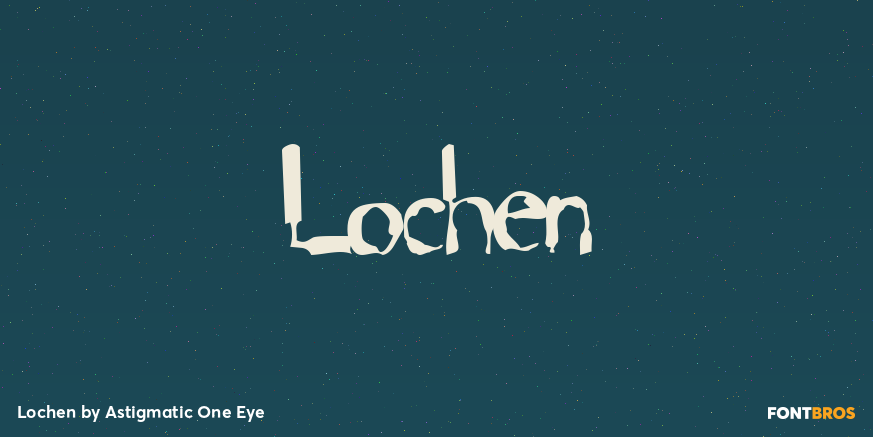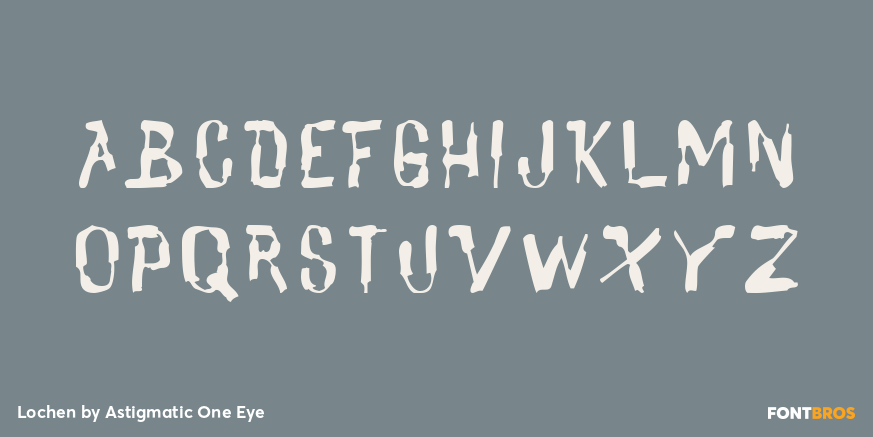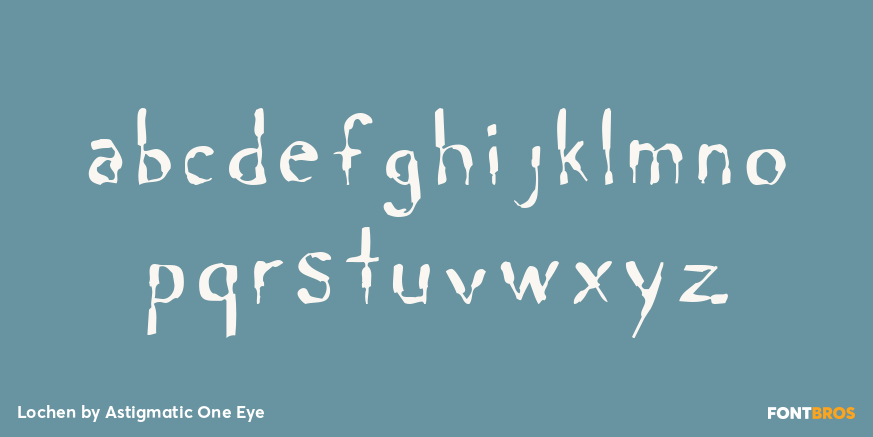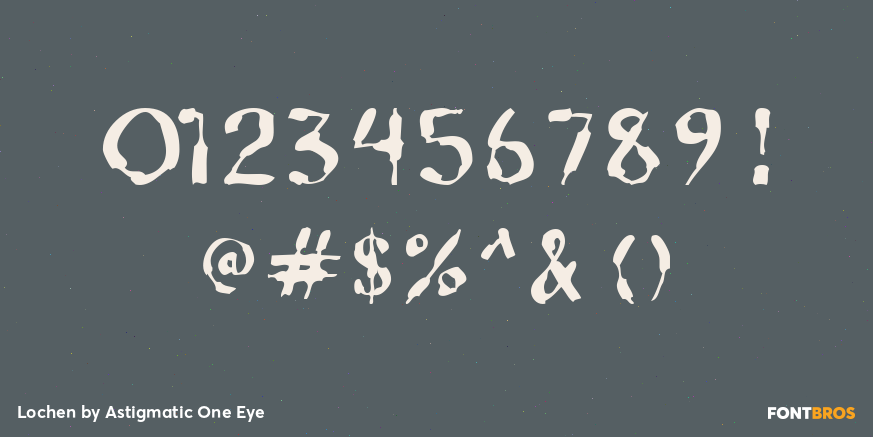
Lochen
Font Family by Astigmatic One Eye
Lochen is a distressed, offbeat sans serif with a grungy, handmade feel. Its rough texture and slightly unruly personality give layouts an informal, expressive look that feels more characterful than a clean display sans.
That scrappy edge makes it a strong fit for posters, casual branding, DIY-inspired graphics, and other display work that benefits from a fun, imperfect voice. If you want type that feels approachable, a little wacky, and visually worn-in rather than polished, this single-style release delivers that mood clearly.
Created by Astigmatic One Eye, Lochen is offered here as a one-font family and free download, making it an easy choice for projects that need texture, attitude, and a relaxed, human touch.